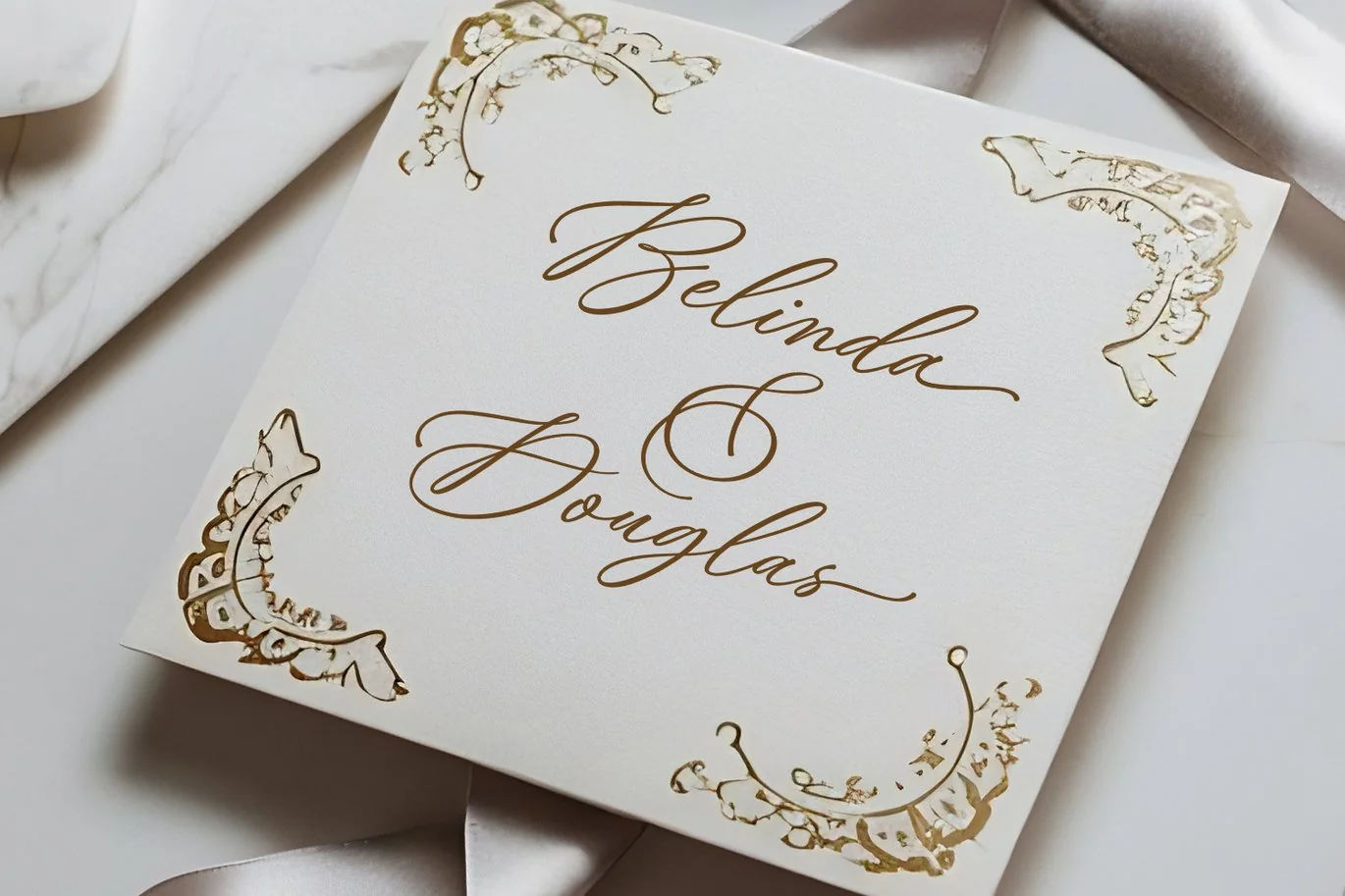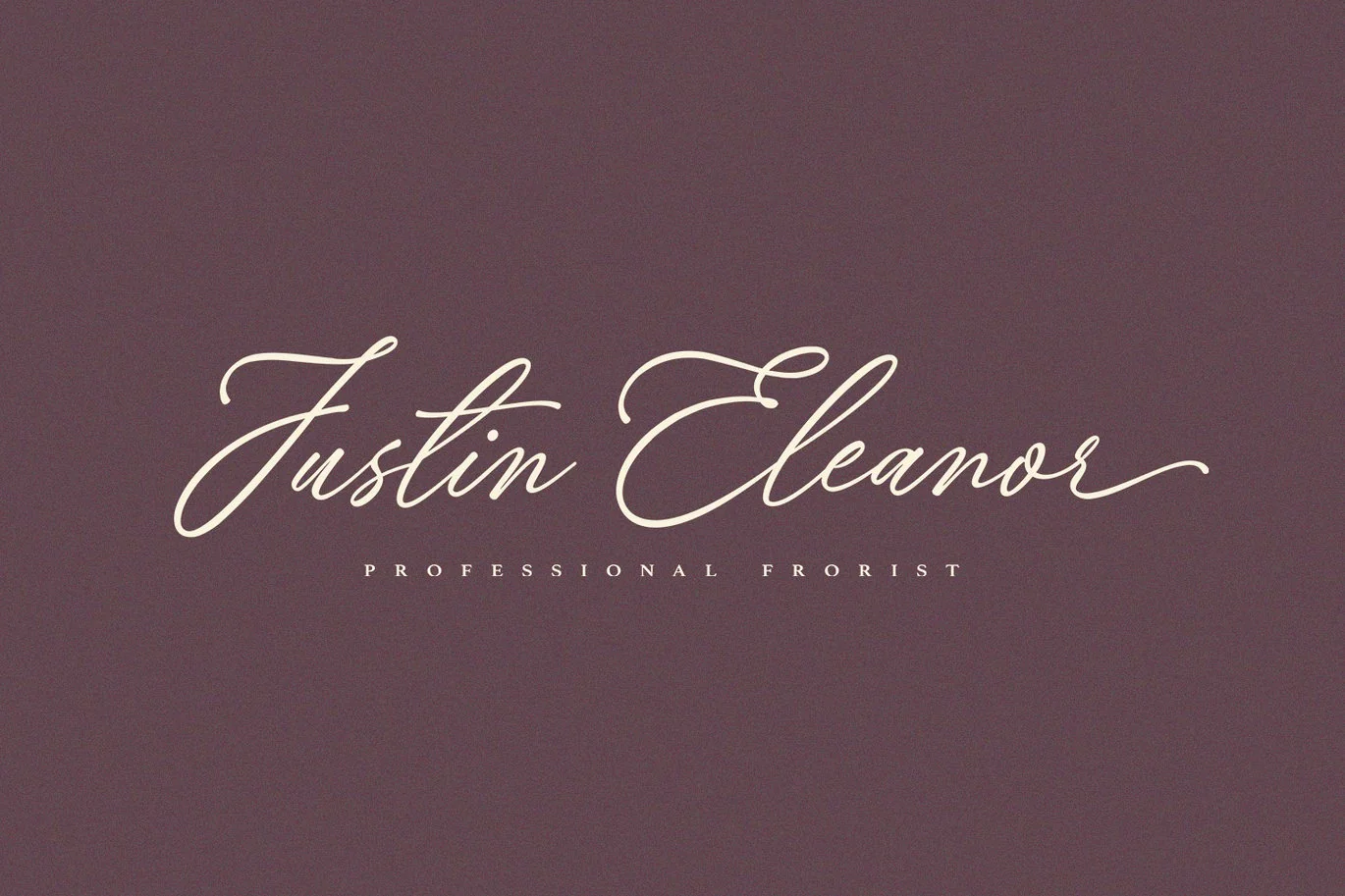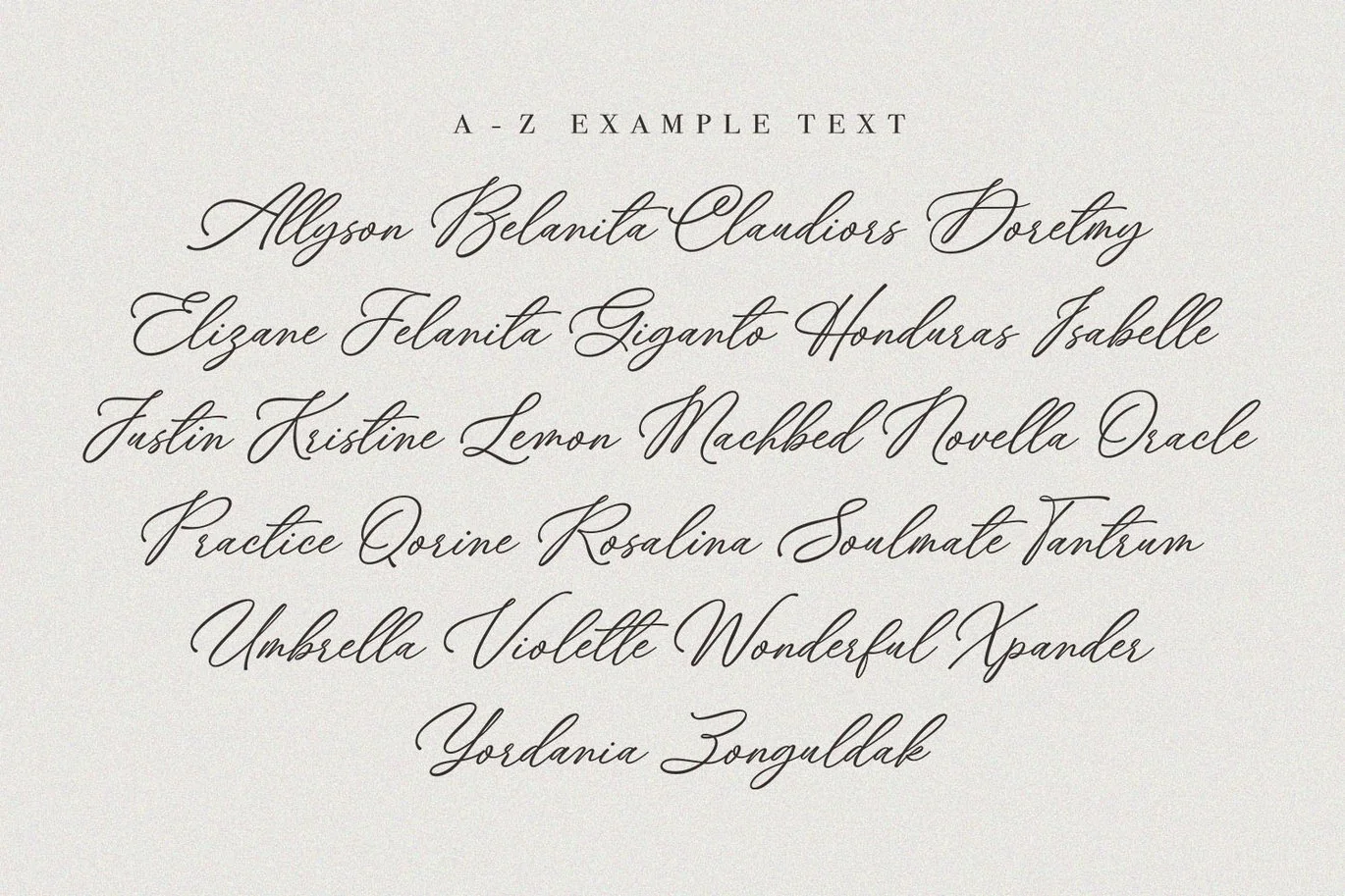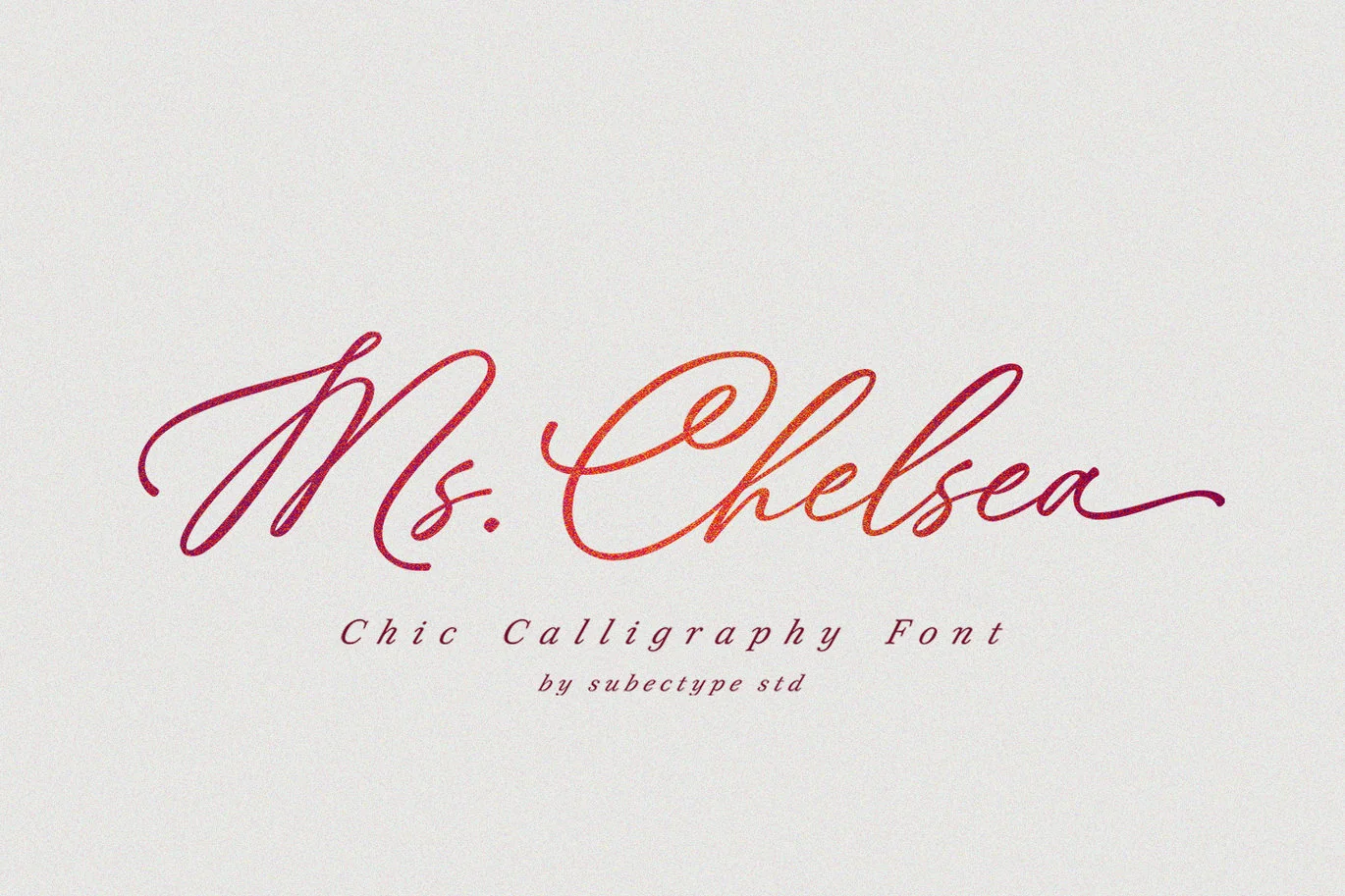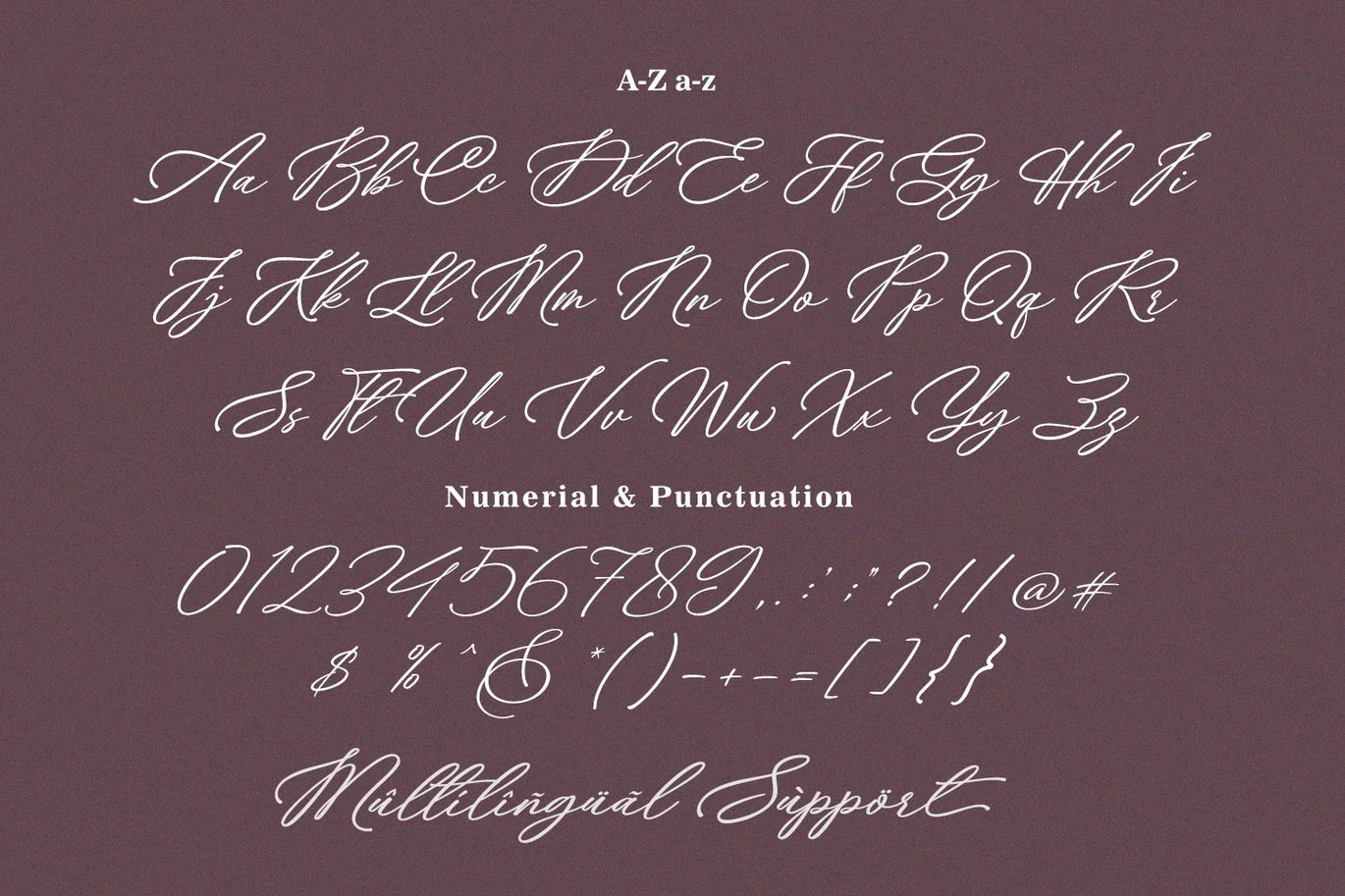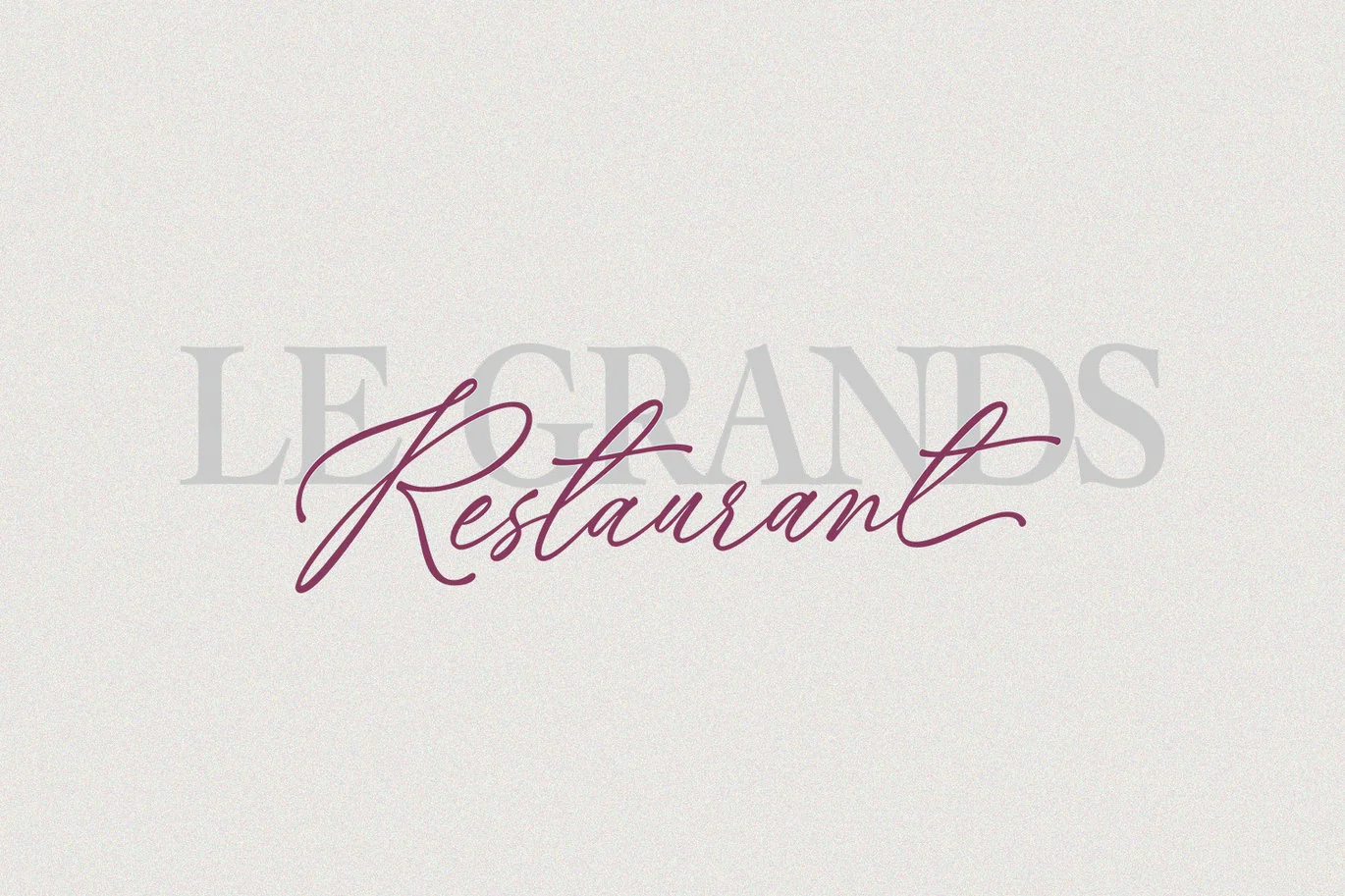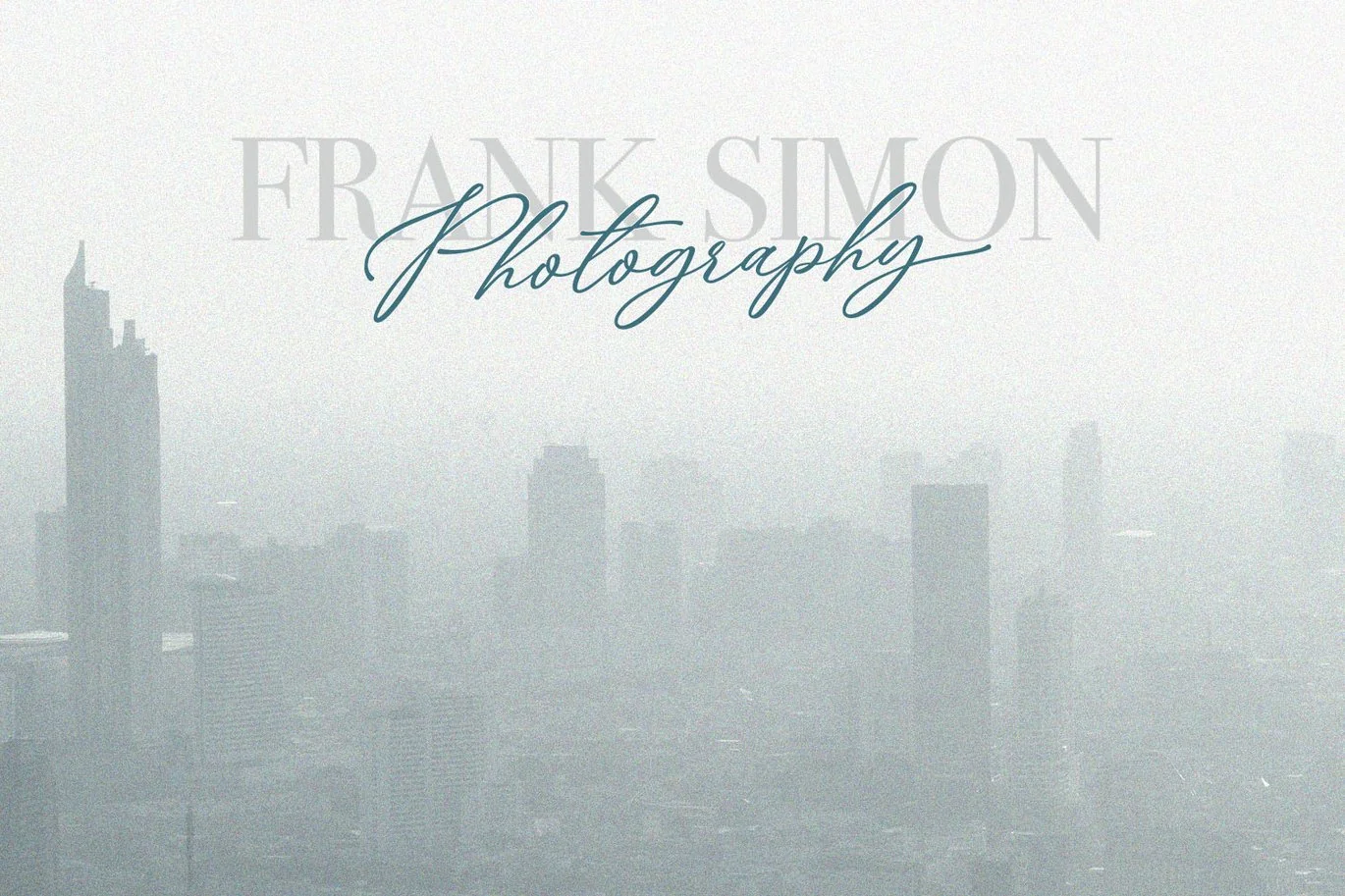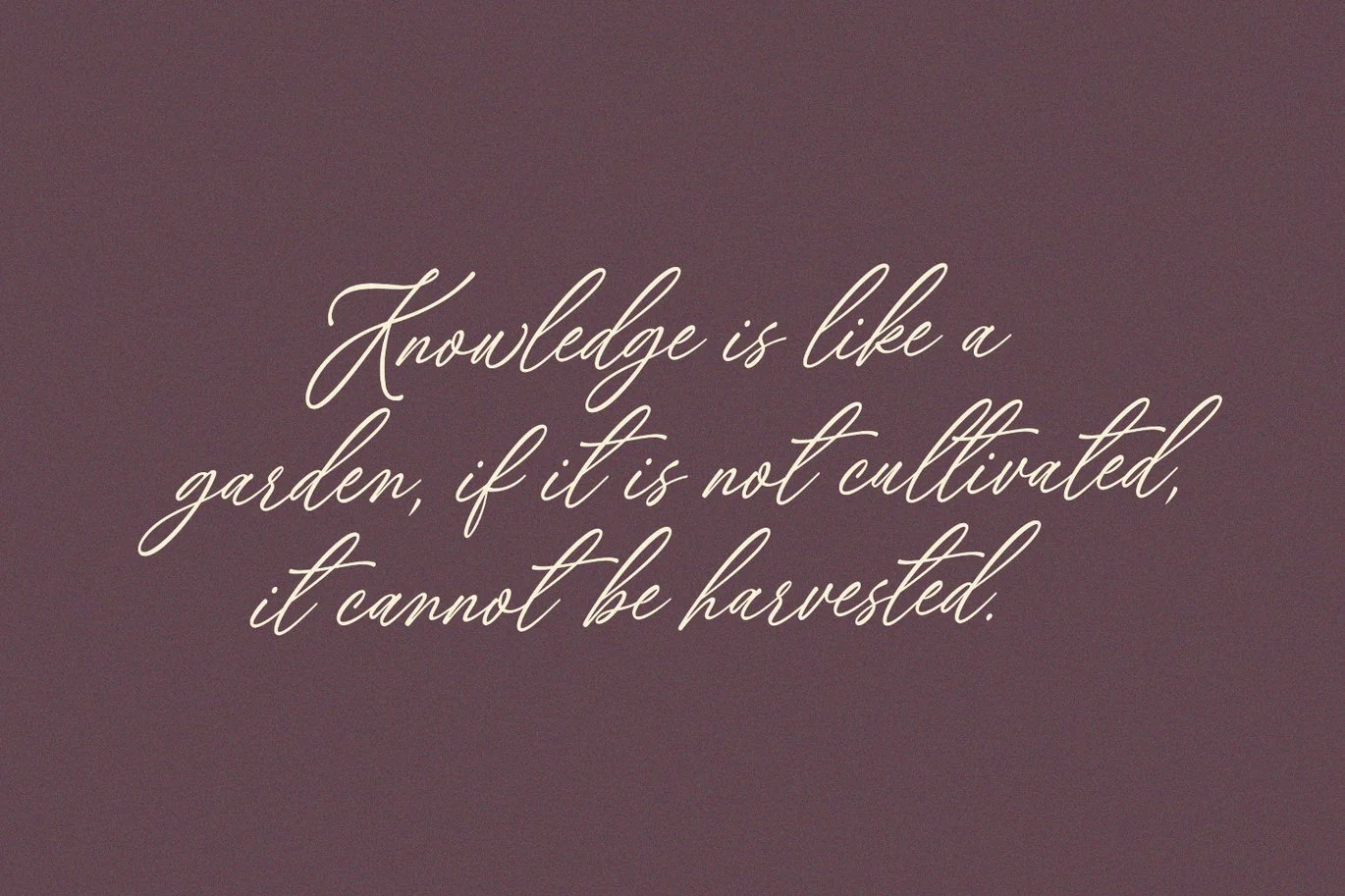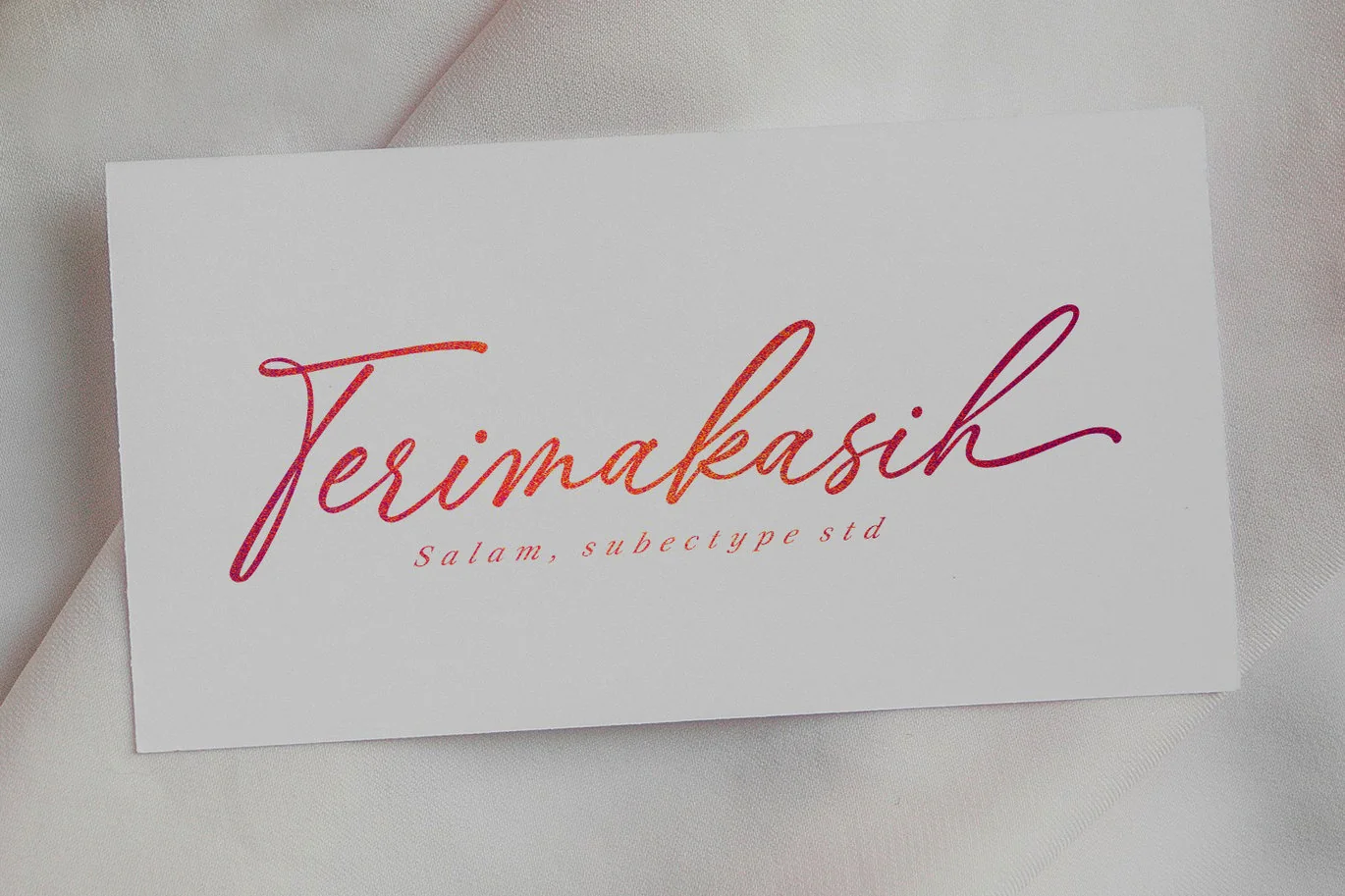
Ms. Chelsea – Wedding Invitation Font
Ms. Chelsea is a Chic calligraphy font, described by an Love touch, perfect for Wedding party, invitation, Signature brand, and all of project with beautiful calligraphy font.
Fall in love with its incredibly distinct and timeless style and use it to create spectacular designs!
Alternate letter and ligatures